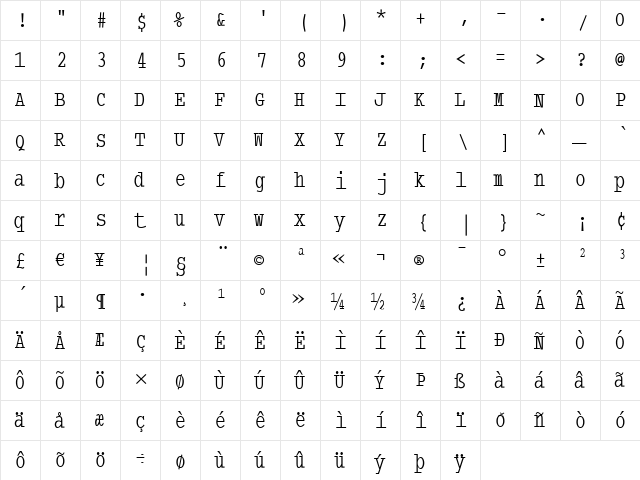
TypewriterCondensed Regular
Design Context for TypewriterCondensed Typeface
TypewriterCondensed brings the precise, column-aligned rhythm of monospaced typography to designs that value technical clarity and systematic order.
A natural fit for code editors, technical documentation, developer-focused branding, and terminal-inspired UI.
Pro Tip: Pair TypewriterCondensed with a proportional sans for UI contexts where code-style labels and regular body copy need to coexist.